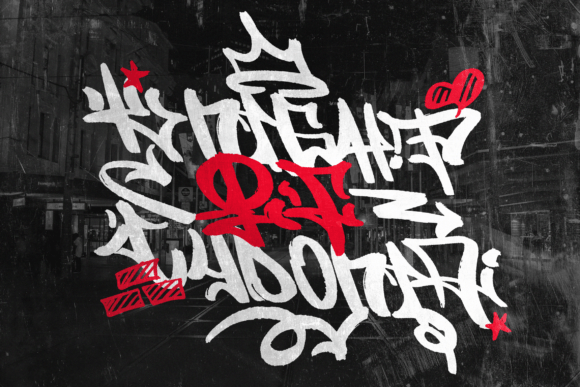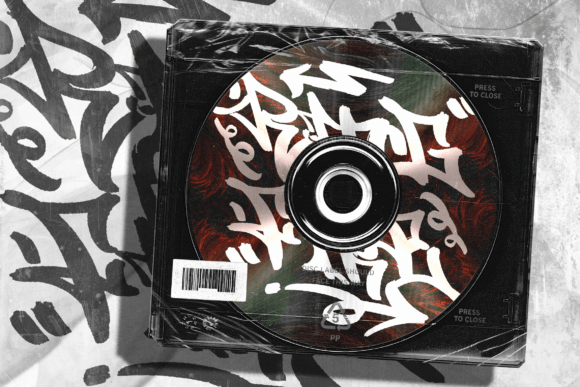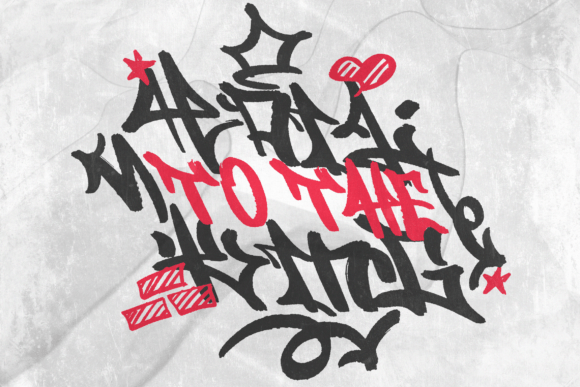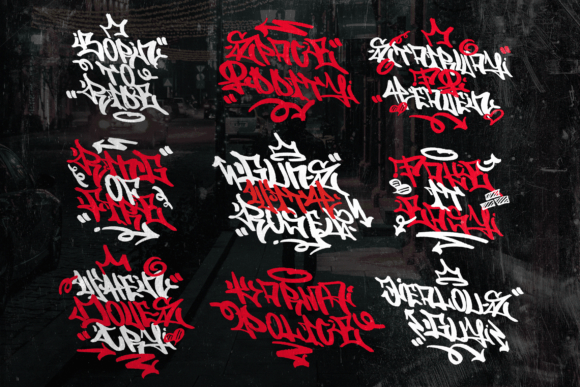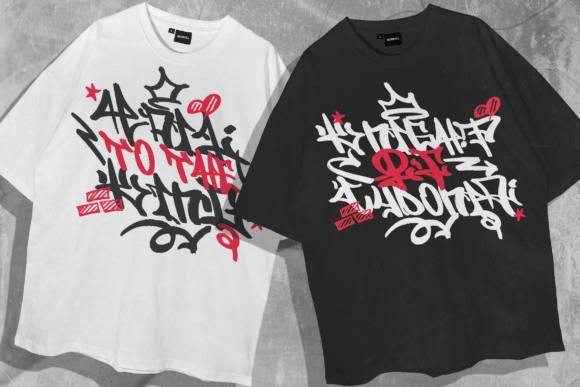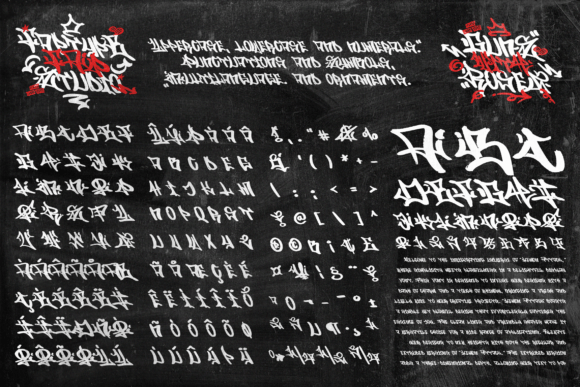
Introduction to Guns with Rosez Font
Introducing “Guns With Rosez,” a bold and rebellious graffiti font that adds an edgy touch to your designs.
This brushed feel font captures the essence of street art with its rough and hardcore vibe, making it perfect for projects that demand attitude and personality Designed with versatility in mind, “Guns With Rosez” supports various foreign languages and offers both uppercase and lowercase characters, allowing you to express your message with authenticity and flair.
Key Features of Guns with Rosez Font
Why Choose Guns with Rosez Font?